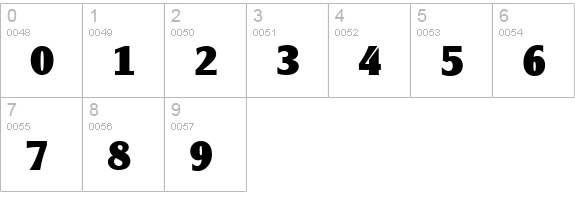
ClearGothicSerial-Heavy-Regular is a heavy, high-impact variant in the ClearGothicSerial typeface family \xE2\x80\x94 well suited to high-impact headlines, posters, and display advertising.
ClearGothicSerial-Heavy-Regular is a bold and commanding font that exudes strength and authority. With its clean lines and bold strokes, this font is perfect for making a bold statement in your design projects. Whether you're creating posters, banners, or logos, ClearGothicSerial-Heavy-Regular will ensure that your message is loud and clear. The best part about ClearGothicSerial-Heavy-Regular is that it is available for free download at FontsMarket.com. This means that you can easily access this powerful font and use it in your projects without any cost. Don't miss out on the opportunity to add ClearGothicSerial-Heavy-Regular to your font collection and take your designs to the next level. Download it now and unleash the power of this impressive font in your creative projects.